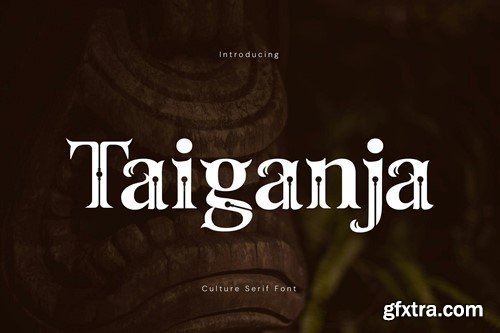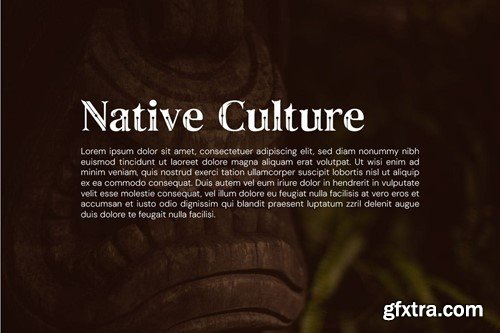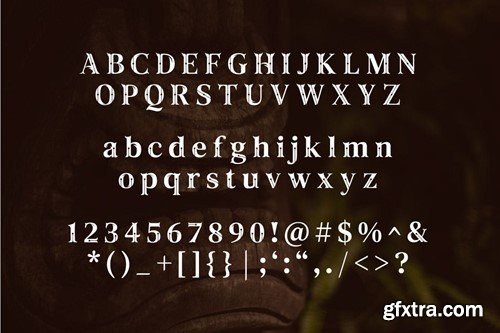
塔干雅 - 文化 serif 字体 QNZYJLZ
Taiganja - Culture Serif Font
Taiganja - Serif Font inspired by the traditions, art, aesthetics of a culture for your personal or business purpose. what includes on ZIP font format ( OTF, TTF, WOFF )